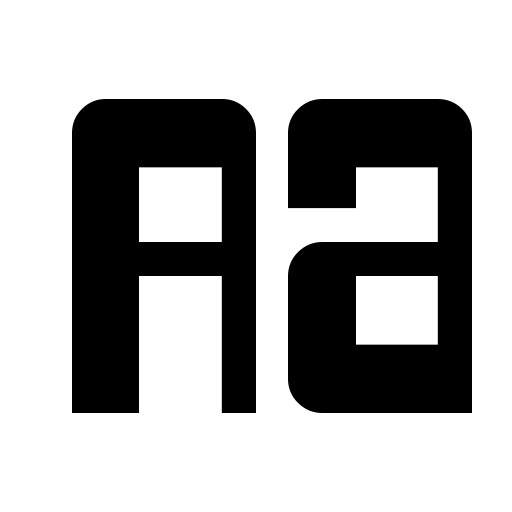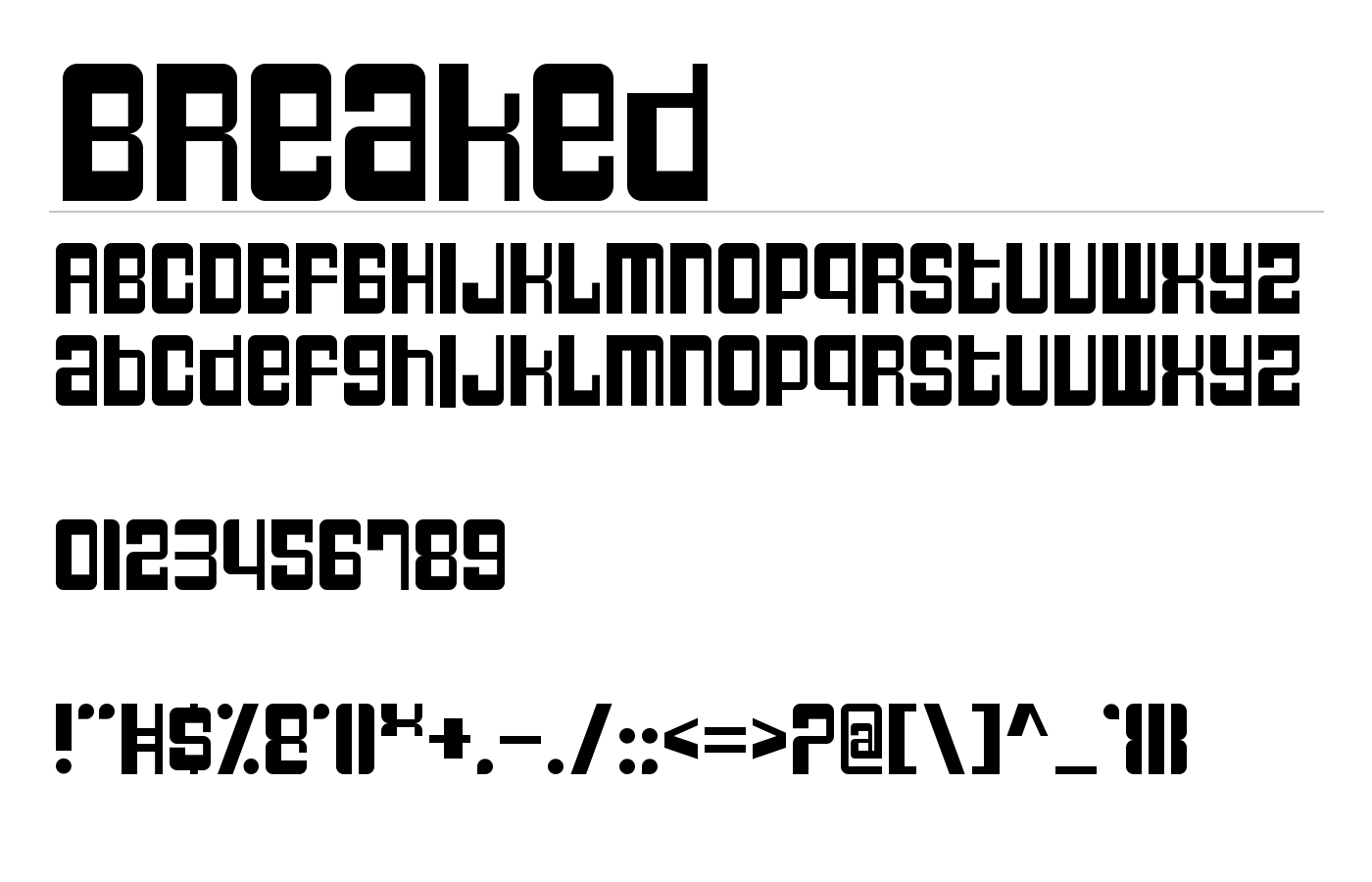
Breaked is a bold, condensed sans serif font with a strong geometric structure and sharp, blocky forms that give it a modern, industrial feel. Its consistent stroke weight and unique, angular letter shapes make it ideal for impactful headlines, logos, and branding that need a futuristic or tech-inspired look. This font stands out in designs where a bold, edgy, and distinctive personality is desired.
Breaked Font